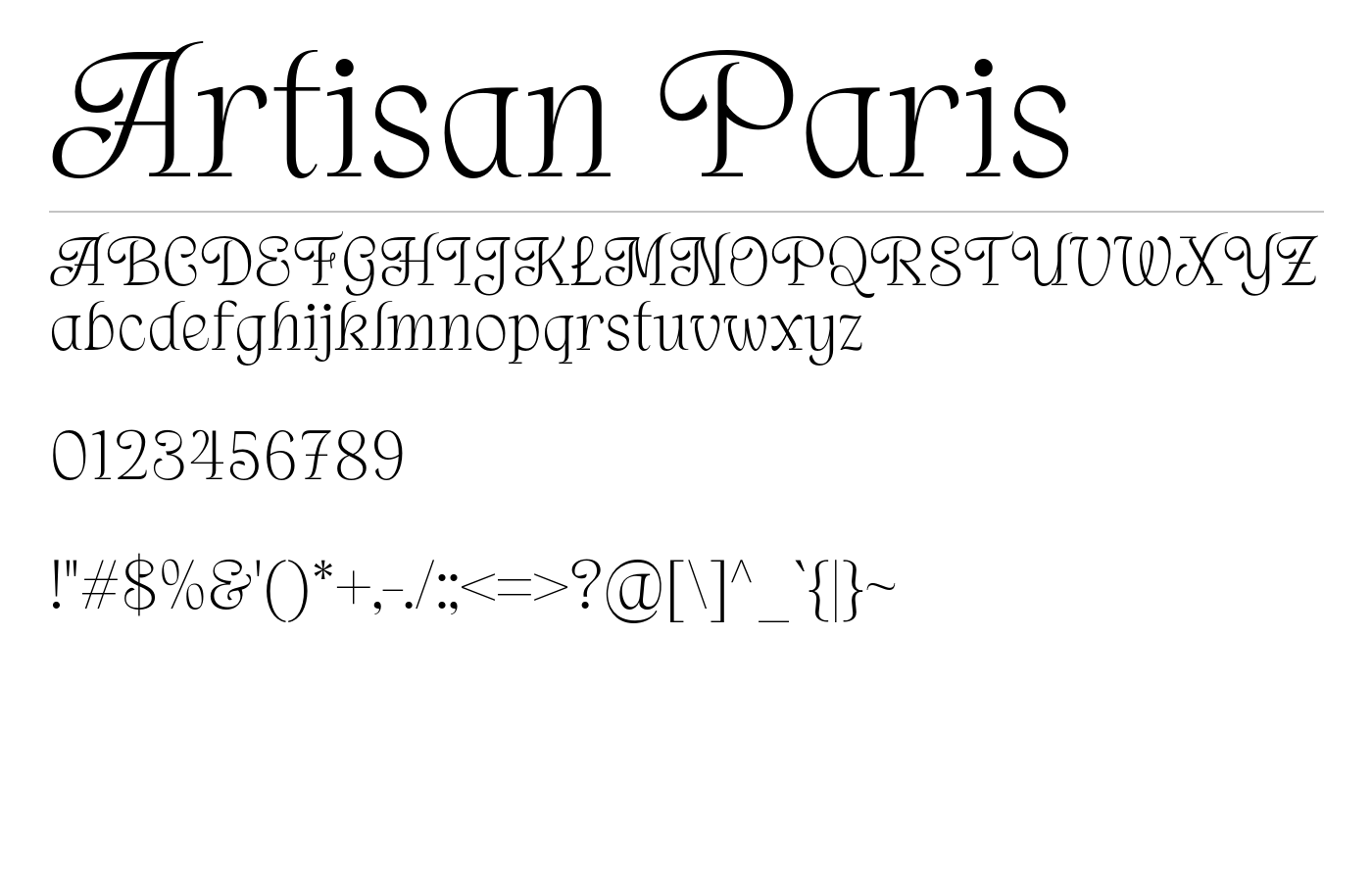
Artisan Paris is an elegant serif typeface with a refined, high-contrast design that combines classic sophistication with artistic flair. Its delicate, bracketed serifs and distinctive curls give it a luxurious, vintage feel, making it ideal for upscale branding, editorial titles, and fashion-related projects where a touch of graceful charm is desired. This font’s airy spacing and unique letterforms create a stylish yet readable look perfect for headlines and decorative use.
Artisan Paris Font
About Artisan Paris Font